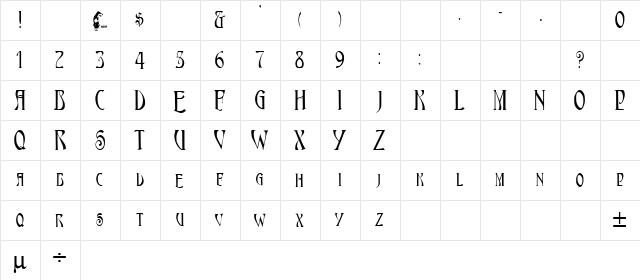
Ambrosia Regular Font Preview
Ambrosia Regular
Design Context for Ambrosia Typeface
Ambrosia is a composed and adaptable typeface that performs quietly and consistently across a wide range of design contexts.